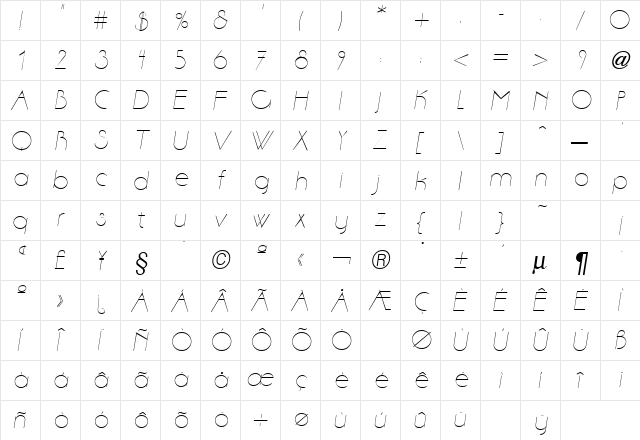
Aase Light Italic Font Preview
Design Context for Aase Light Typeface
Aase Light takes a measured approach to typography — its balanced proportions and neutral character make it a reliable workhorse for both digital and print work. Its italic angle brings a sense of urgency and motion to the letterforms. The delicate stroke weight brings airiness and refinement to layouts.